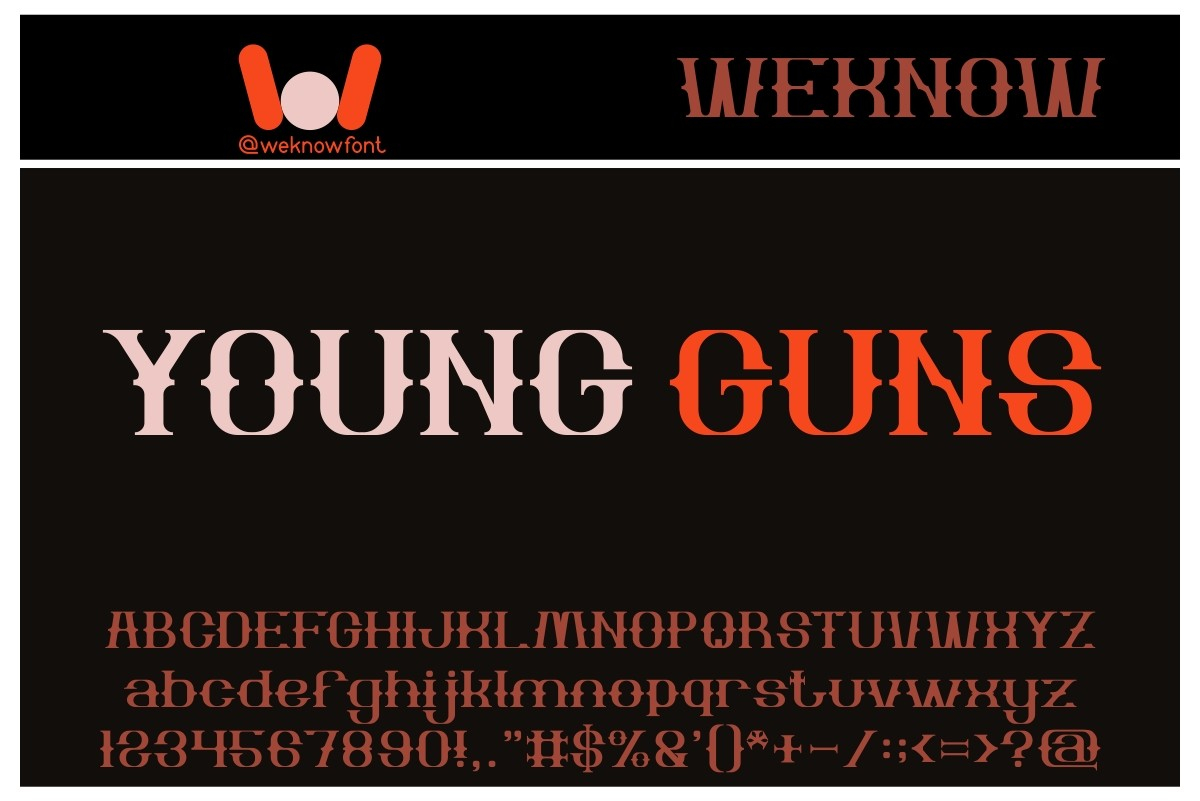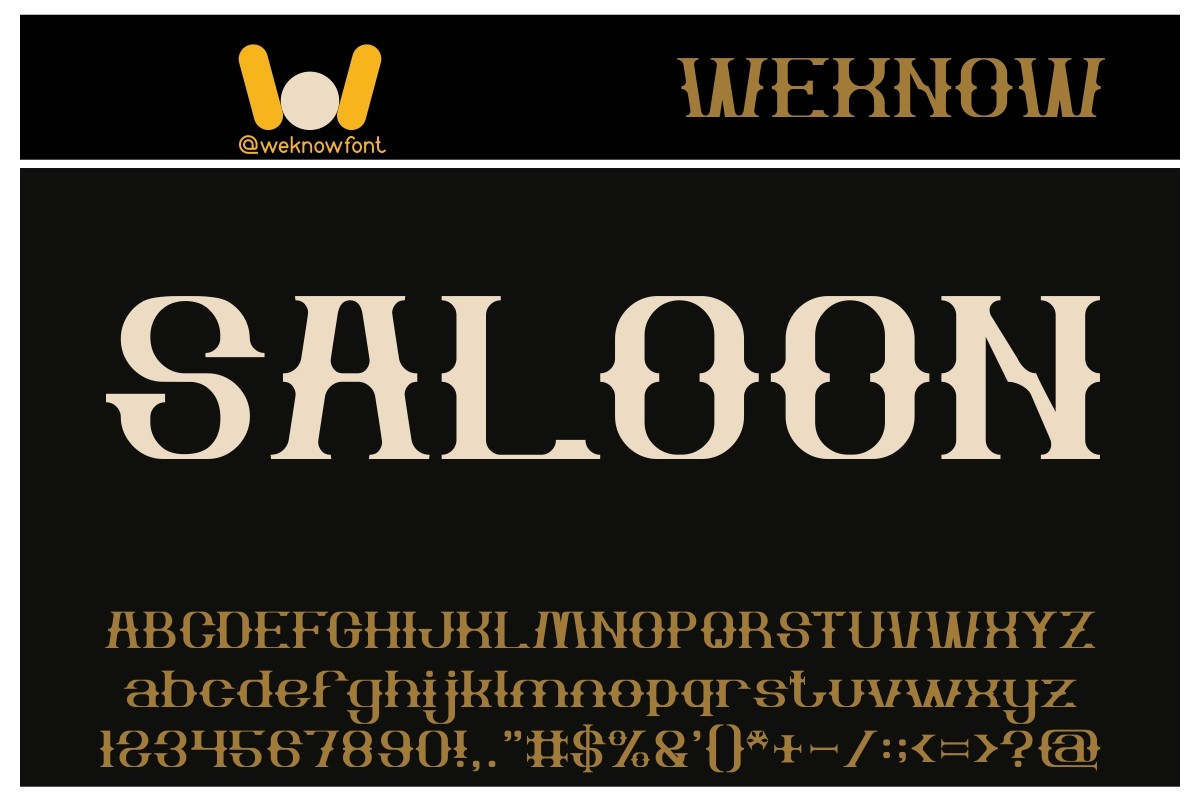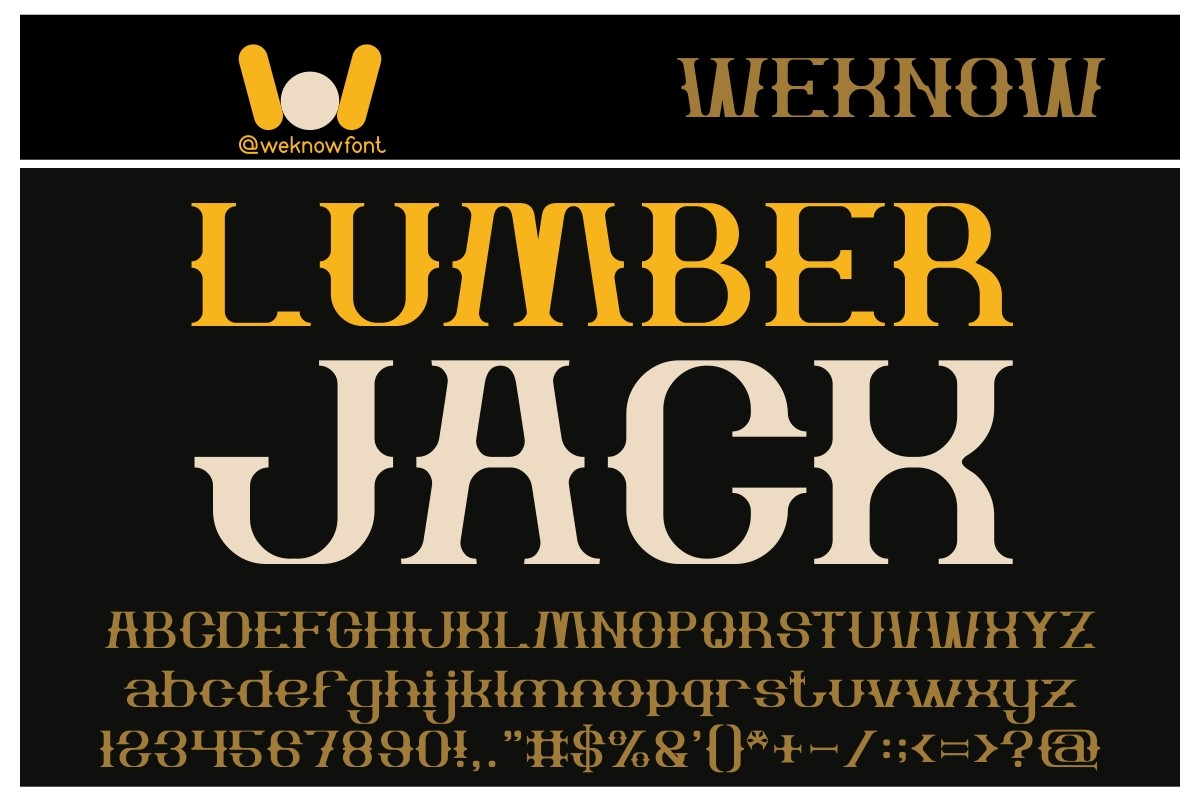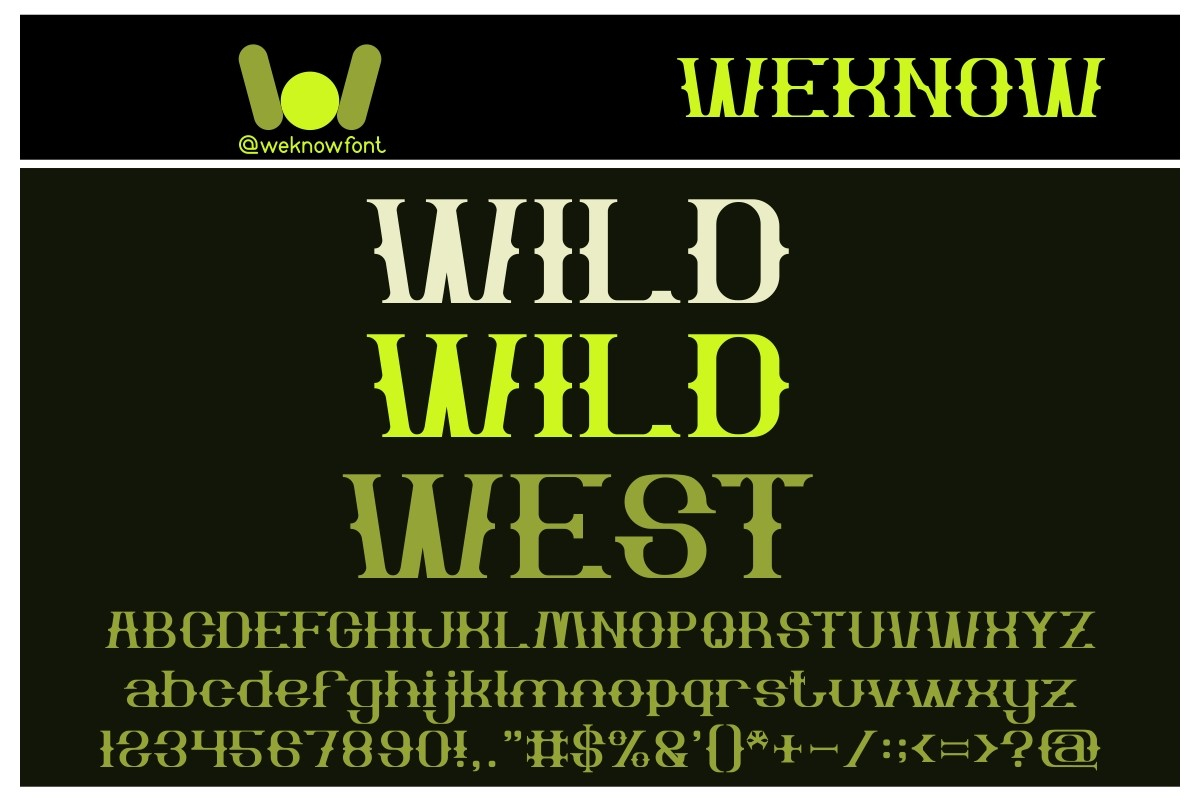
The Bartender Font
About The Bartender Font
The Bartender is a fancy and cool looking blackletter font. It is suitable for logos, headlines, posters, music, movies, games, and so much more.